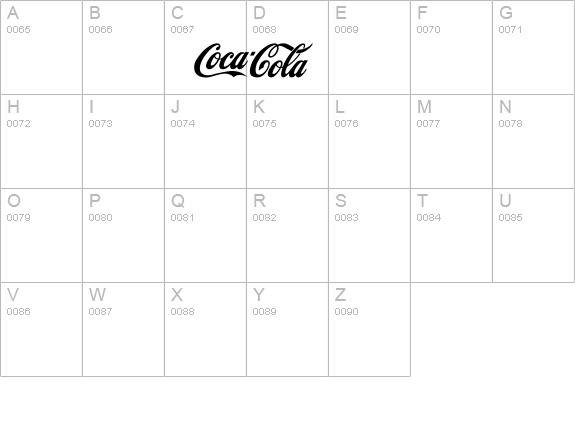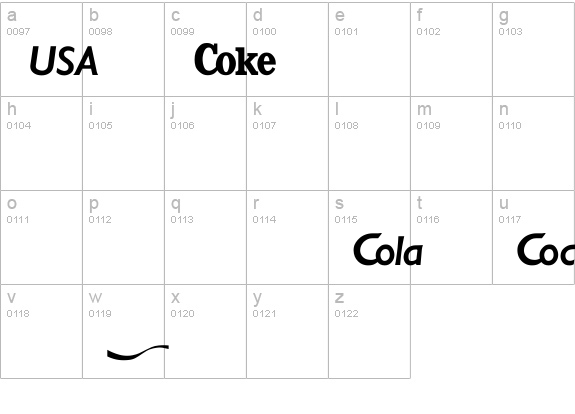
CocaCola Font Details
The CocaCola font is a classic and iconic typeface that brings to mind the refreshing taste of the beloved soft drink. With its bold, dynamic letterforms and distinctive curves, this font exudes energy and excitement, making it perfect for branding and marketing projects. The CocaCola font is versatile and can be used in a variety of design applications, from logos and packaging to posters and advertisements. Best of all, the CocaCola font is completely free to download at FontsMarket.com. Whether you're a seasoned designer looking to add a touch of nostalgia to your work or a newcomer eager to experiment with a well-known typeface, the CocaCola font is a fantastic choice. Download it today and let your creativity flow with this timeless and iconic font.